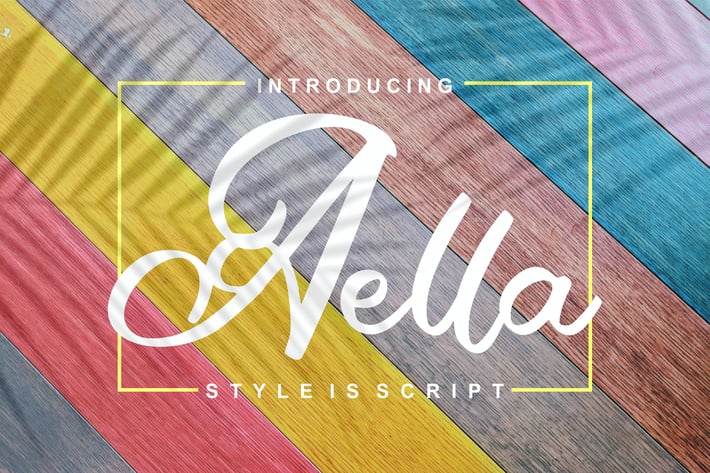
Aella | Style Is Script Font
Aella | Style Is Script Font with a calligraphy style, So beautiful on invitation like greeting cards, branding materials, business cards, quotes, posters, and more!